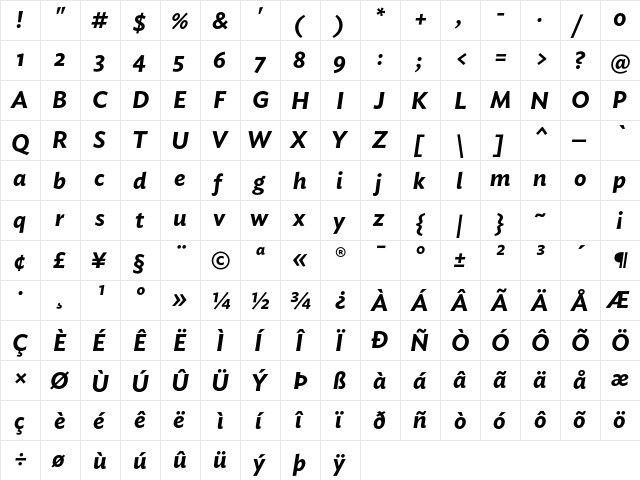
Ideal Sans Semibold Italic
Design Context for Ideal Sans Typeface
Ideal Sans takes a measured approach to typography — its balanced proportions and neutral character make it a reliable workhorse for both digital and print work. The dynamic lean of this cut emphasises speed and emphasis in any layout. Its bold stroke weight gives it real presence on the page.
Pro Tip: Use Ideal Sans for emphasis, pull quotes, and subheadings where its slanted energy can add rhythm to the layout.